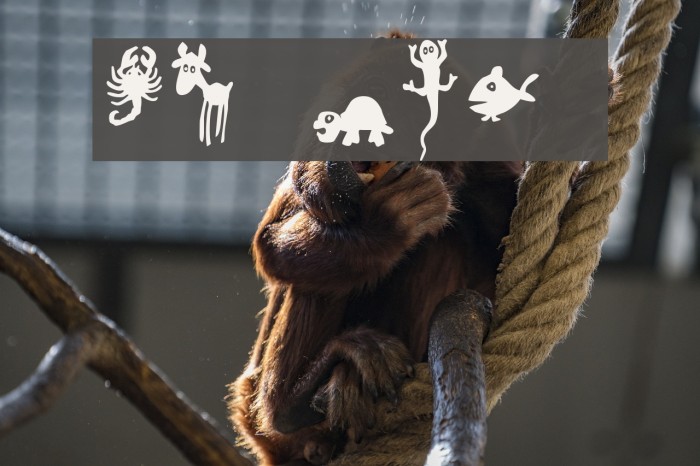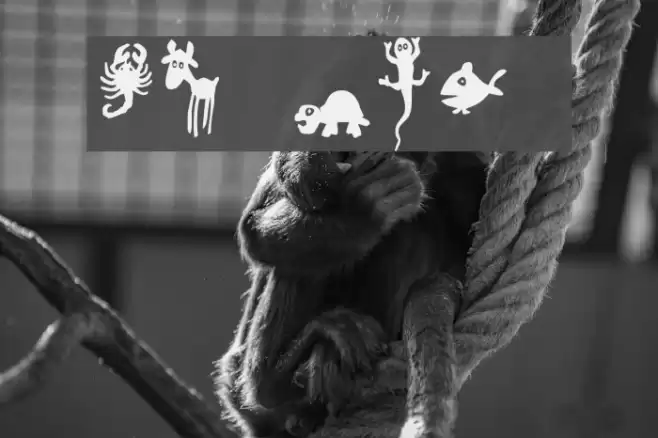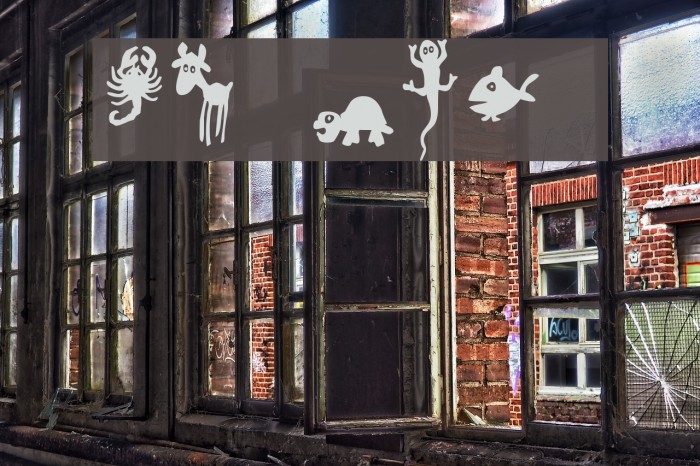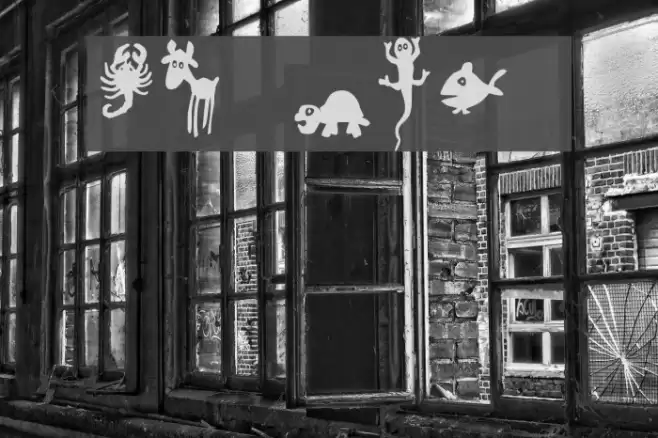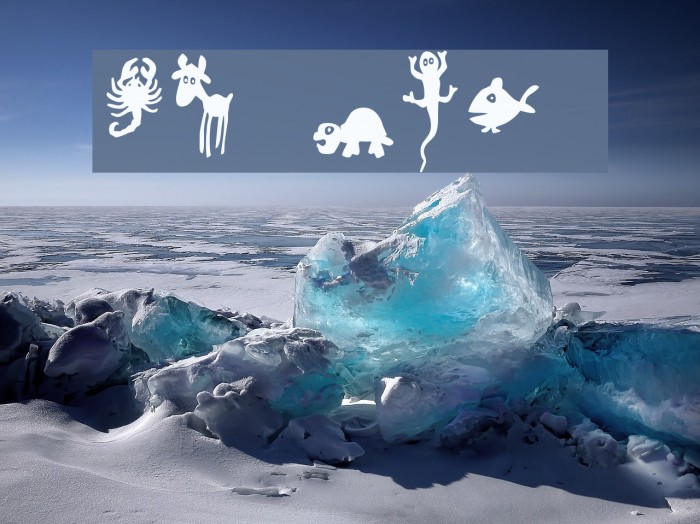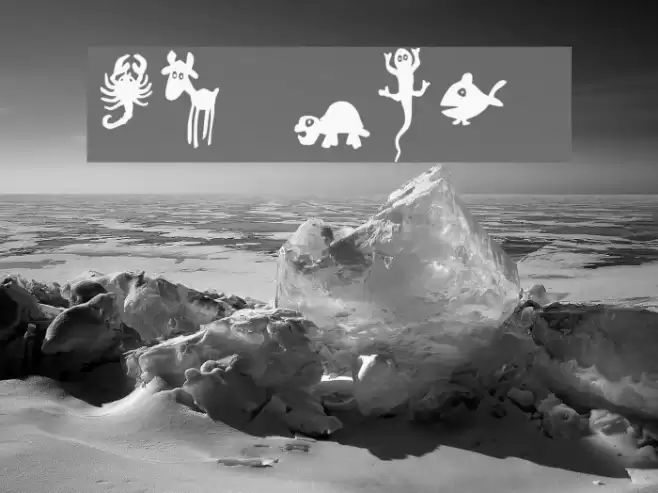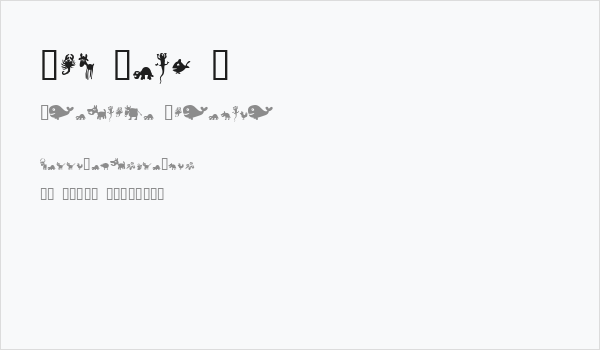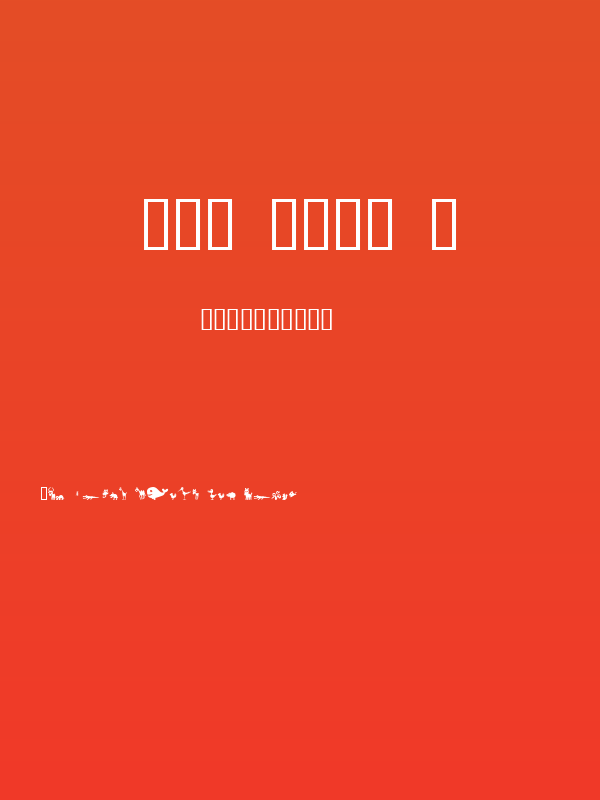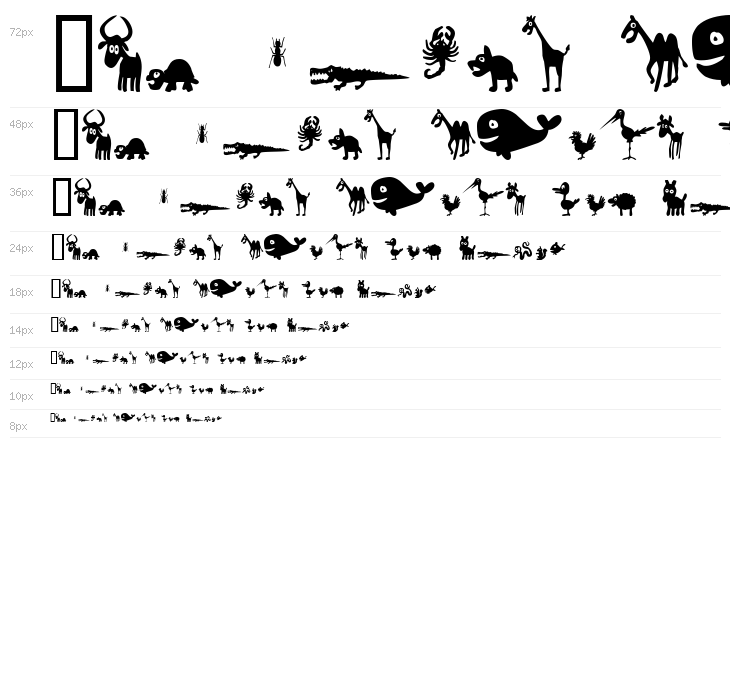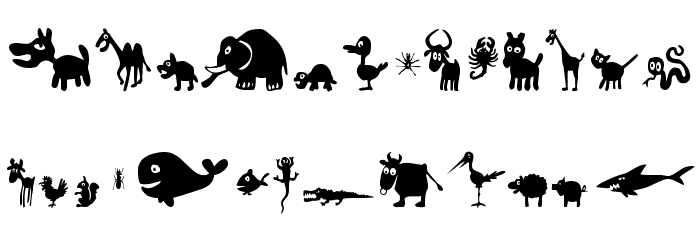
Win Pets 2 Font
Win Pets 2 Description
A playful and whimsical collection of hand-drawn animal silhouettes, each character representing a different animal in a cartoonish and friendly style. The glyphs are bold, filled, and feature exaggerated features for a fun, approachable look.
| Overall Style | Playful, Whimsical, Decorative |
| Use Case | Icons, Decorative elements, Themed graphics |
| Proposed Projects | ChildrenΓ’β¬β’s books, educational materials, party invitations, playful branding, animal-themed designs. |